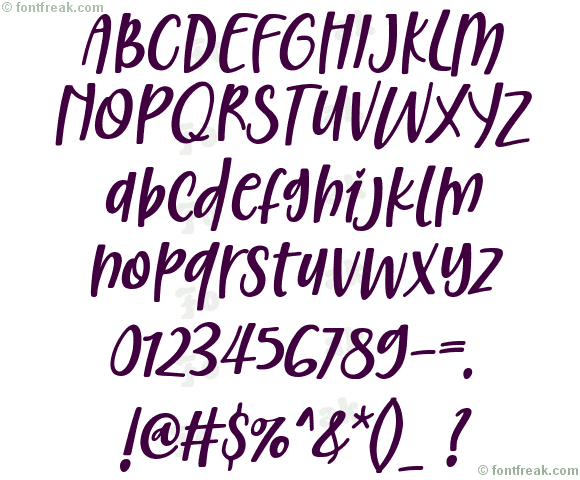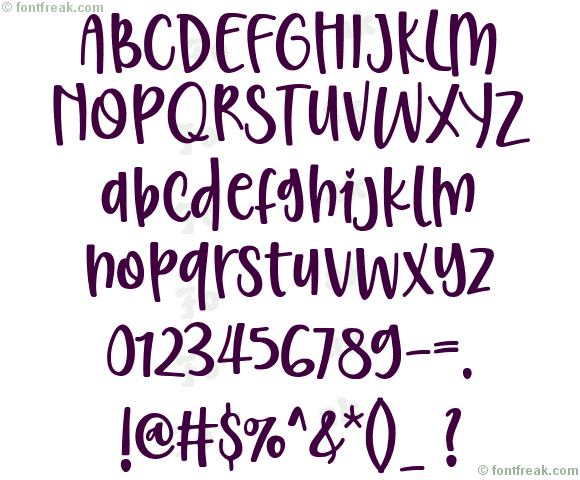
Christed Italic
Christed
About Christed Italic
Christed Italic is a unique display font designed by Situjuh Nazara, embodying a dynamic blend of elegance and flair. As an italic script, it features a distinctive style that captures attention with its flowing curves and playful strokes. The font exhibits a moderate stroke weight with varying contrast, creating an eye-catching visual appeal. Its carefully crafted spacing allows for seamless readability, making it an excellent choice for various design applications.
This font is particularly suited for wedding invitations, where its graceful lines can enhance the romantic theme. Additionally, it works wonderfully for book covers, bringing a whimsical touch to literary works. Restaurant menus can benefit from the Christed Italic font, giving a sophisticated yet inviting feel to the dining experience. Furthermore, it can be used effectively in branding materials, allowing small business owners to create a memorable identity that stands out in a crowded marketplace.
The target audience for Christed Italic includes graphic designers looking for fresh and stylish typography, small business owners seeking to elevate their branding, and content creators who want to add a unique touch to their projects. This font's versatility makes it a valuable asset across various creative fields.
What truly sets the Christed Italic font apart is its ability to convey emotion through its playful design while maintaining legibility. Whether used in print or digital media, it adds a layer of personality that can enhance any project. The Christed Italic font free download offers an opportunity for designers and creators to explore its charm without any cost, making it an accessible choice for those looking to enrich their typographic toolkit.